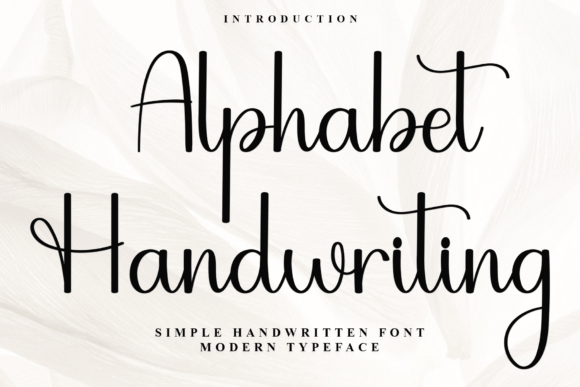
As the snowflakes start to fall and the twinkling lights adorn the streets, I find myself reminiscing about the joy of childhood holidays. There’s something special about receiving a handmade card or gift tag from a loved one, with its unique, handwritten touch. This sense of nostalgia is exactly what Alphabet Handwriting Font captures – a festive and merry typeface that embodies the spirit of the holiday season.
Perfect for adding a touch of whimsy to your designs, Alphabet Handwriting Font is a valuable asset for designers looking to create enchanting holiday-themed projects. Whether you’re working on greeting cards, gift tags, or other festive materials, this font brings a cheerful and nostalgic ambiance to your words. With its decorative elements and playful flair, Alphabet Handwriting Font is sure to bring a smile to the faces of your loved ones.
Key Features of Alphabet Handwriting Font
- Unique Characteristics: The Alphabet Handwriting Font features a distinctive, cursive style with varying line widths and subtle flair, giving it a personal and artistic touch.
Review of Alphabet Handwriting Font
I recently had the chance to work with the Alphabet Handwriting Font, and I must say it’s a mixed bag. On the positive side, the font’s unique and playful style ✨ makes it perfect for projects that require a personal touch. The font’s irregularities and imperfections add a human element to the text, making it feel more approachable and friendly.
- ⚠️ The font can be difficult to read in certain situations, particularly in smaller sizes or when used for large blocks of text. The irregularities that make it look so unique can also make it hard to decipher in certain cases.
- ⚠️ The font may not be suitable for all types of projects. For example, if you’re creating a formal document or a website with a lot of text content, a more traditional font may be a better choice.
Overall, I think the Alphabet Handwriting Font is a great choice for projects that require a touch of personality and whimsy. Just be sure to use it judiciously and in situations where its unique style will shine.
The Alphabet Handwriting Font is ideal for:
- Creating personalized invitations and party decorations.
- Designing educational materials and worksheets.
- Adding a touch of whimsy to marketing materials and social media graphics.
Alternatives to Alphabet Handwriting Font
Great Vibes is a modern, elegant, and highly legible handwriting font. It’s perfect for use in logos, branding, and other design elements where a clean and sophisticated look is desired. Great Vibes is more refined and polished than Alphabet Handwriting Font, making it a great choice for formal or high-end designs.
Carolyna Pro is a beautiful, high-end handwriting font with a luxurious feel. It’s ideal for use in high-end branding, invitations, and other design elements where a touch of elegance is needed. Compared to Alphabet Handwriting Font, Carolyna Pro has a more refined and sophisticated feel, making it a great choice for luxury or high-end designs.